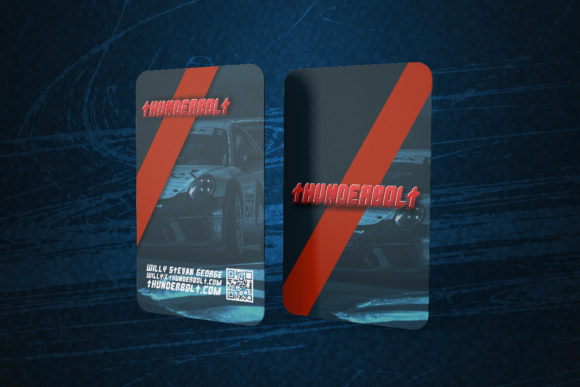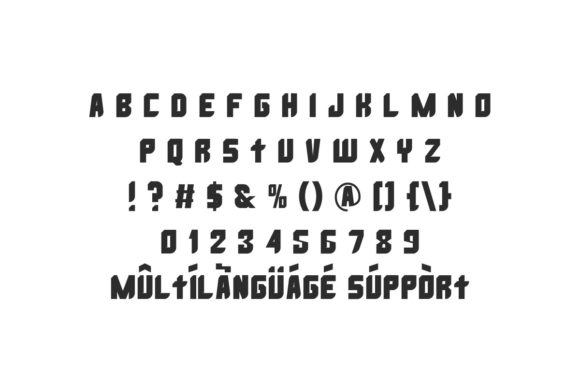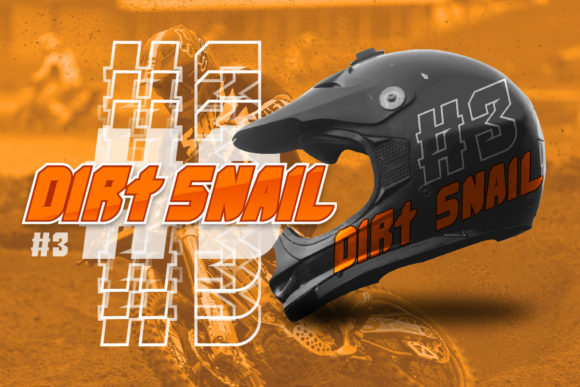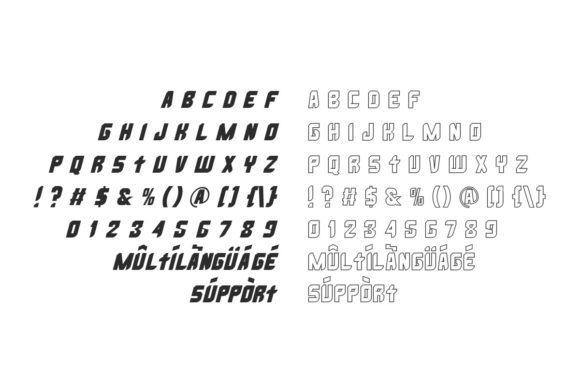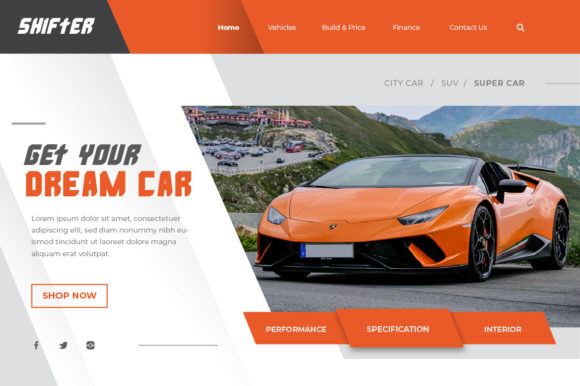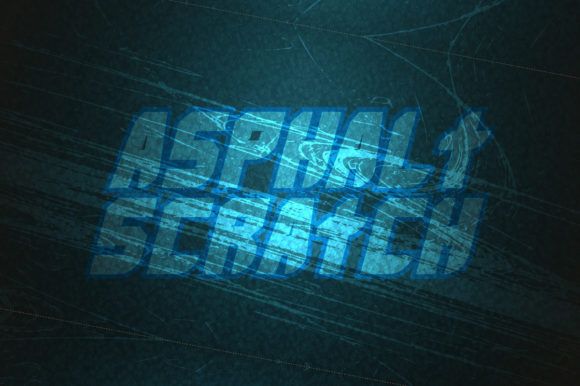
Introduction to Race Break Font
As designers, we’ve all been there – stuck in a creative rut, searching for that perfect font to elevate our project from meh to mesmerizing. It’s like trying to find a needle in a haystack, but with a much higher stakes – the success of our design depends on it. For me, that moment came when I stumbled upon the Race Break Font. Its bold, futuristic vibe was exactly what I needed to give my branding project the edge it deserved.
The Race Break Font is a game-changer for designers, offering a high-quality design resource that’s perfect for logos, t-shirt printing, and creative products. Its transparent background and clean lines make it a versatile choice for any project, and with a free download available, it’s an accessible addition to any designer’s toolkit. Whether you’re a seasoned pro or just starting out, the Race Break Font is a valuable resource that’s sure to take your designs to the next level.
- High-quality design resource for creative projects, ideal for use in various applications such as logos, signage, and digital displays.
- Features a unique, bold design with a transparent background, making it easy to customize and combine with other design elements.
- Perfect for designers and creatives looking for a unique, high-quality font to elevate their designs and stand out in a crowded market.
Honest Review: Race Break Font
I recently stumbled upon the Race Break Font and was excited to dive in and explore its features. As a designer, I’m always on the lookout for high-quality design resources that can elevate my creative projects.
- The Race Break Font is a great addition to any design project that requires a bold and energetic feel.
- The transparent background option allows for seamless integration with other design elements.
- The font may not be suitable for projects that require a more subtle or elegant aesthetic.
- The font family is relatively small, which may limit its versatility in certain design contexts.
Overall, I’m impressed with the Race Break Font’s unique style and high quality. While it may have some limitations, I believe it’s a great addition to any designer’s toolkit. Whether you’re working on a project that requires a bold statement or a free-spirited vibe, the Race Break Font is definitely worth checking out.
To get the most out of the Race Break Font, be sure to use it in a way that complements its unique design. Experiment with different font sizes and colors to find the perfect combination for your project.
The Race Break Font is a versatile design resource that can be used in a variety of creative projects, including logos, posters, and social media graphics. Its high quality and transparent background make it a great choice for designs that require a lot of detail and texture.